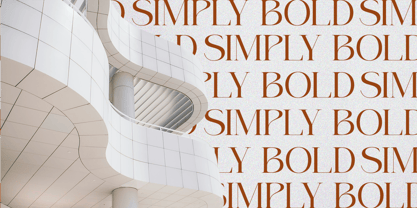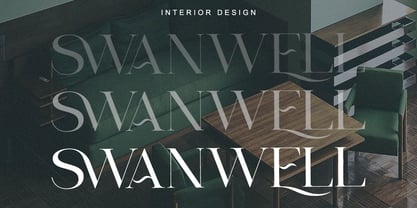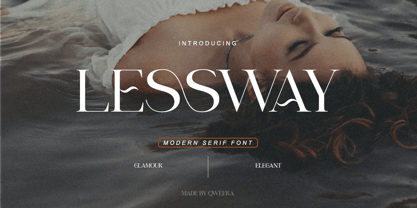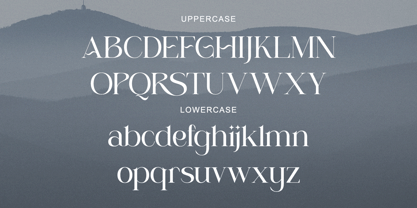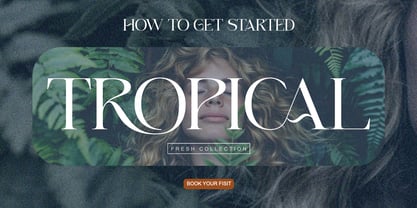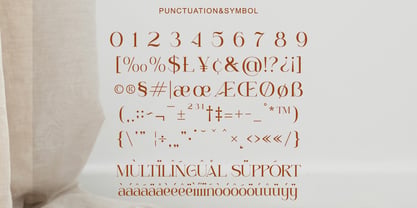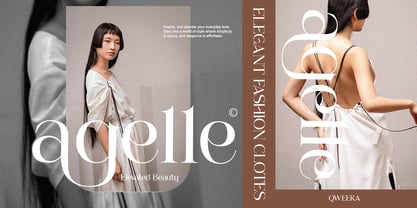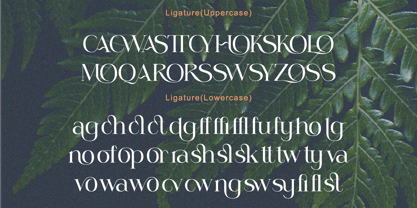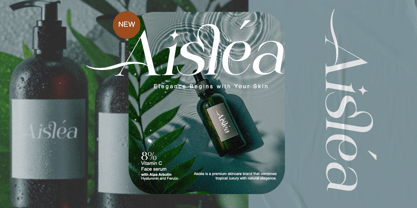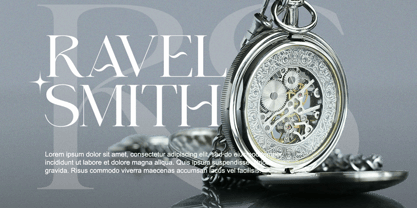
Lessway
by Qweera Studio
The Lessway Font Family was designed by Idhham Cholid Rikzano Yahya and published by Qweera Studio. Lessway contains 2 styles and family package options. More about this family
Lessway - Elegant Luxury Serif Font for Premium Branding Lessway is a sophisticated serif typeface that exudes refined elegance and contemporary luxury. Featuring both Regular and Italic styles with exquisite alternates and ligatures, this font is meticulously crafted for high-end branding, luxury logos, premium packaging, and editorial designs that demand both beauty and prestige. Where Modern Elegance Meets Timeless Sophistication With its graceful serifs and balanced proportions, Lessway delivers exceptional versatility for brands seeking both refinement and impact. The carefully designed alternates and ligatures enable seamless typographic harmony, perfect for creating distinctive visual identities with a touch of class. Premium Features Include: Luxury Serif Design – Elegant letterforms with refined details Dual Style Versions – Regular & italic for dynamic applications Stylish Alternates – 20+ premium character variations Sophisticated Ligatures – Flawless letter connections Universal Compatibility – From business cards to billboards Extended Latin Support – Comprehensive character set Elevate Your Brand with Lessway's Unmatched Elegance Ideal for: Luxury fashion branding High-end cosmetic packaging Premium editorial layouts Elegant logo creation Sophisticated stationery design Available Now – Experience Lessway's Refined Luxury!
Designers: Idhham Cholid Rikzano Yahya
Foundry: Qweera Studio